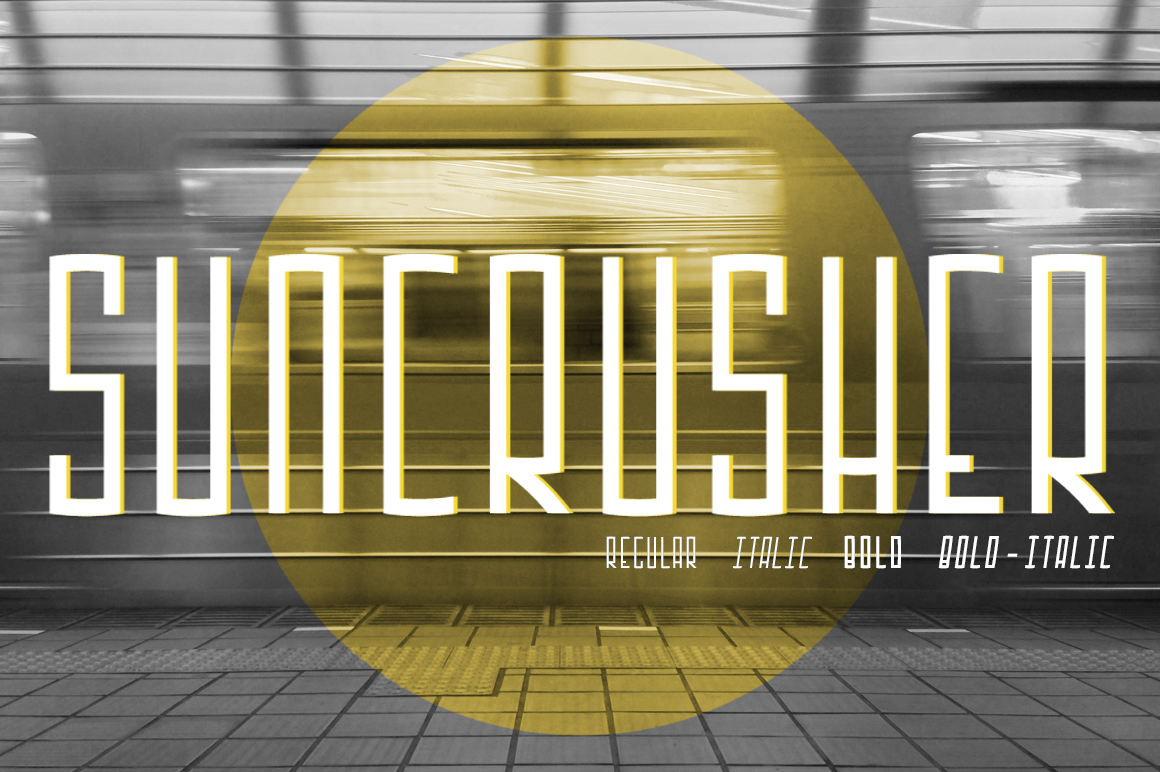
Suncrusher (4 Fonts)
The name was inspired by the band Driver Friendly, but the style, originally intended to be a slab-serif, was inspired by the band A Small Victory.